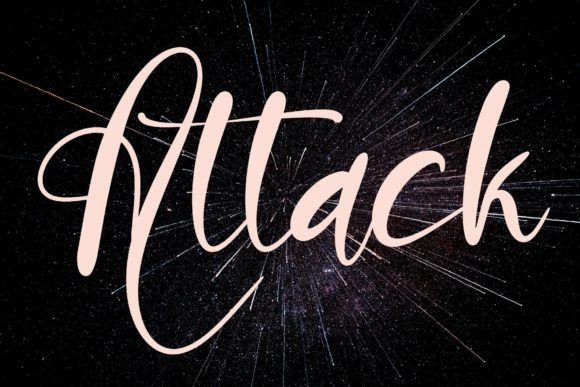
Dive into the world of elegance and grace with Attack Font, a script font that exudes charm and sophistication. Its clean, thin, and smooth lines dance across your screen, leaving a trail of beauty in their wake. With its modern calligraphy style, Attack Font adds a touch of artistry to any design, making it the perfect choice for those seeking a unique and captivating font.
Whether you're creating logos, invitations, website designs, or any other creative project, Attack Font will elevate your work to new heights. Its delicate strokes and graceful curves add a touch of refinement and elegance, transforming ordinary text into a visual masterpiece.
Imagine your signature documents adorned with the flowing lines of Attack Font. Each letter becomes a work of art, adding a personal touch to contracts, agreements, and other important documents. Your signature will command attention and leave a lasting impression on recipients, conveying a sense of professionalism and sophistication.
Attack Font isn't just a font; it's an expression of your individuality. Its versatility allows you to explore a wide range of creative possibilities. From whimsical wedding invitations to sleek business cards, this font adapts seamlessly to any project, adding a touch of charm and sophistication.
Join the ranks of creative professionals who have embraced Attack Font to elevate their designs. Let your imagination soar as you discover the endless possibilities this font offers. Transform your projects into works of art, captivating your audience with the beauty and elegance of Attack Font.